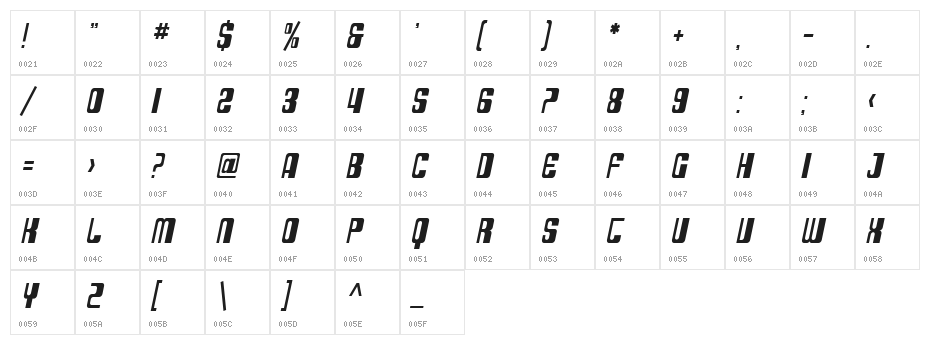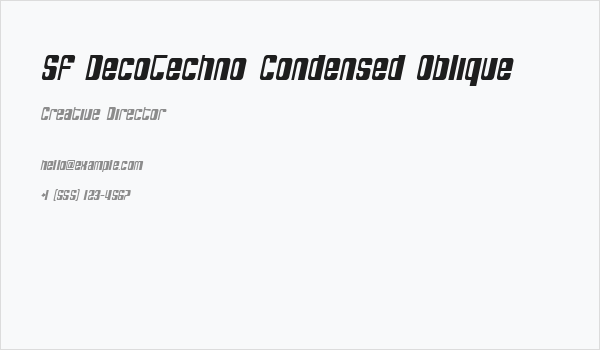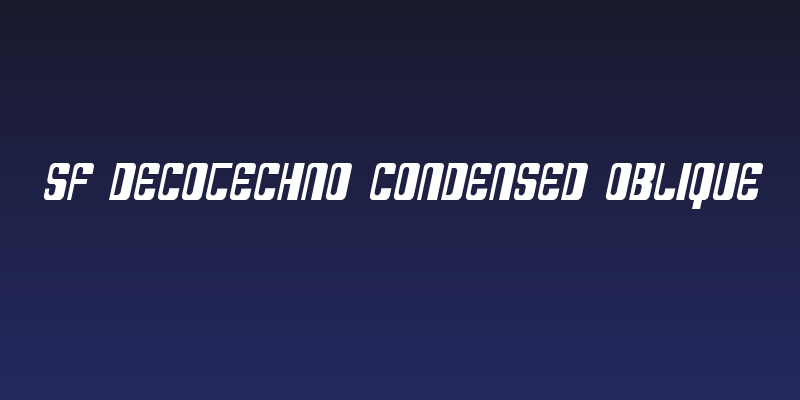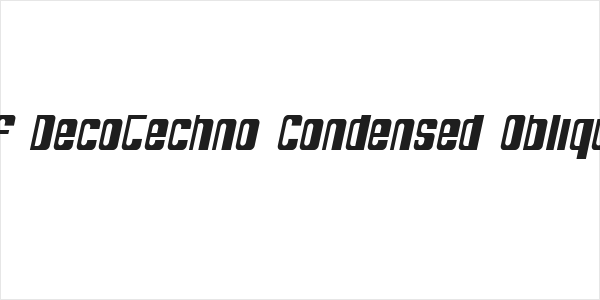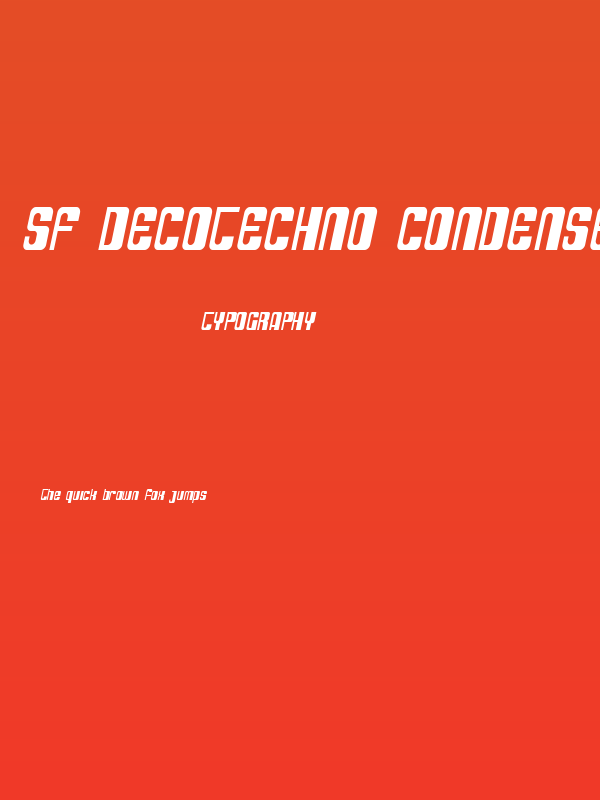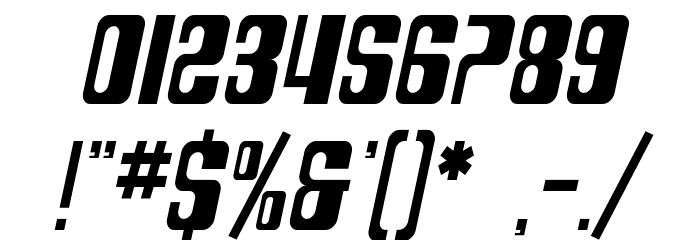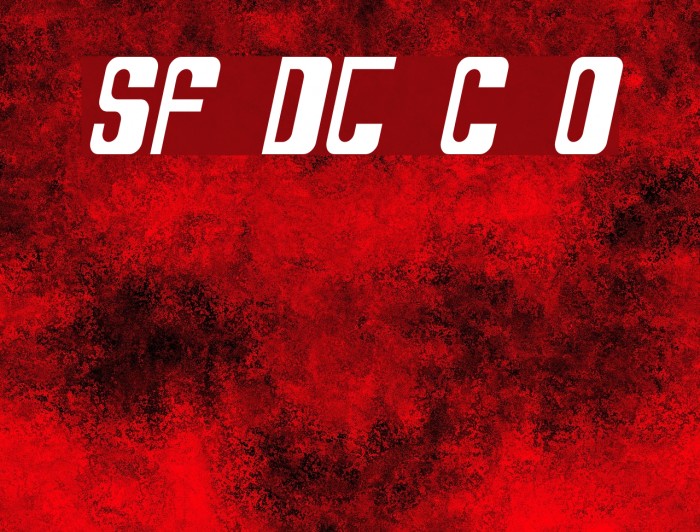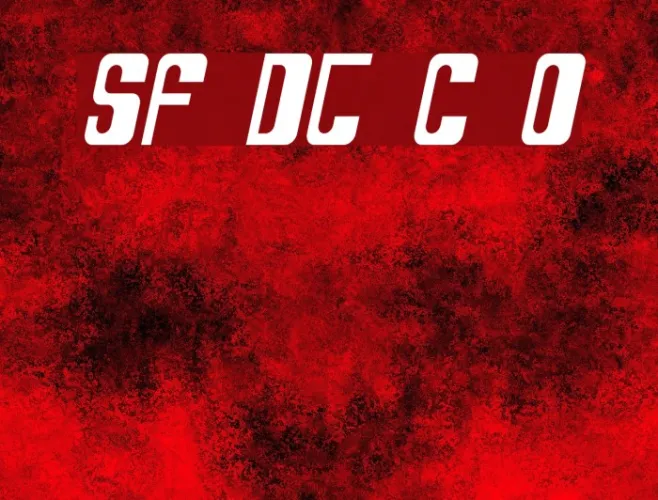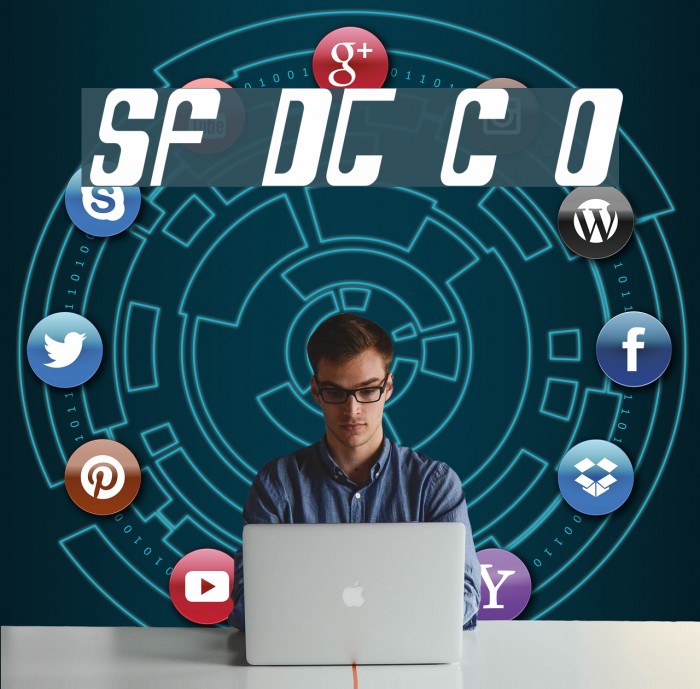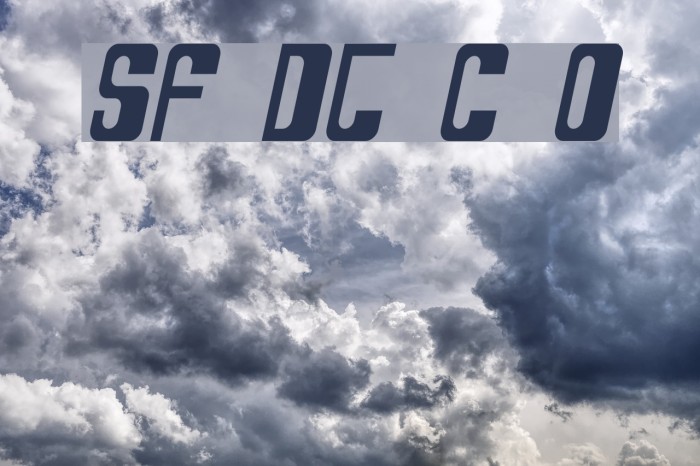
SF DecoTechno Condensed Oblique Font
SF DecoTechno Condensed Oblique Description
This font features a futuristic and sleek design with a condensed and oblique style. The characters are bold and angular, giving a sense of movement and modernity. The uppercase and lowercase letters maintain a consistent geometric structure, with sharp edges and a slight slant that adds dynamism. The numerals and special characters follow the same design principles, ensuring uniformity across the typeface. The overall appearance is both technical and stylish, making it suitable for projects that require a contemporary and edgy look.
| Proposed Projects | Ideal for technology branding, sci-fi posters, video game titles, and modern advertising. |